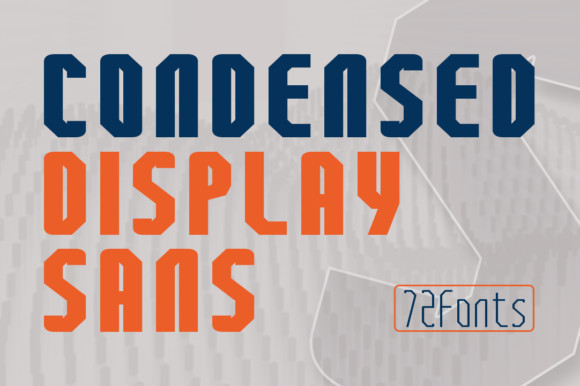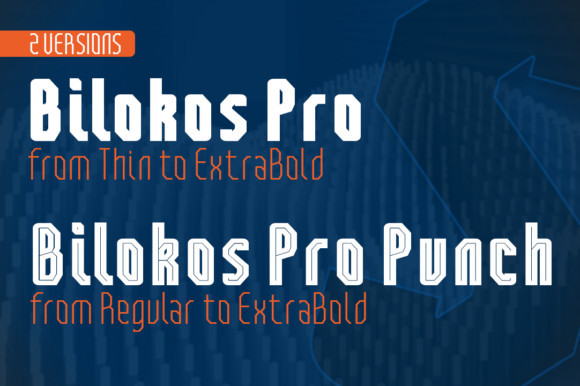
Bilokos Pro Font
Bilokos Pro is a cool, techno and bold display font. Add this futuristic font to each of your designs and make your creations stand out.